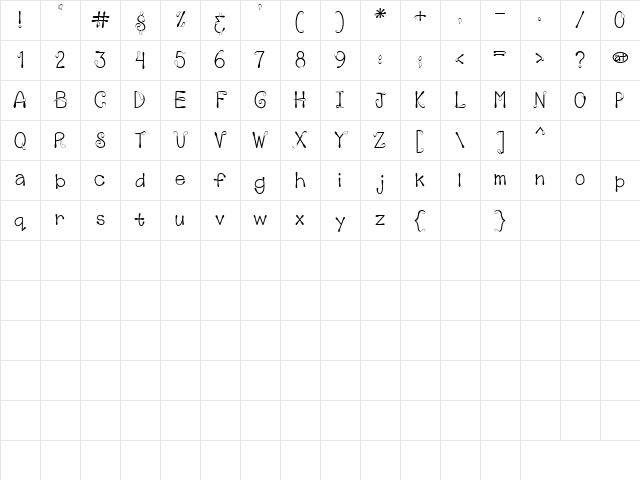
LD Agua Regular
Design Context for LD Agua
LD Agua is a composed and adaptable typeface that performs quietly and consistently across a wide range of design contexts.